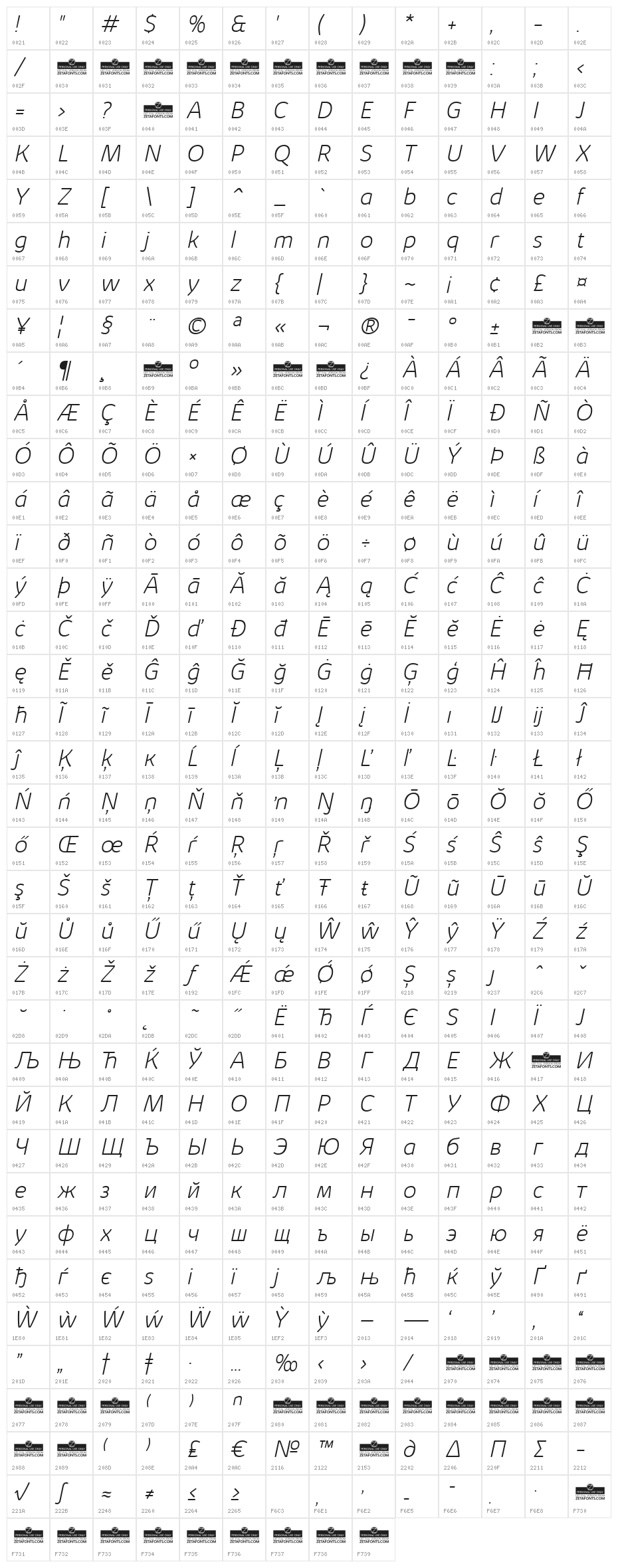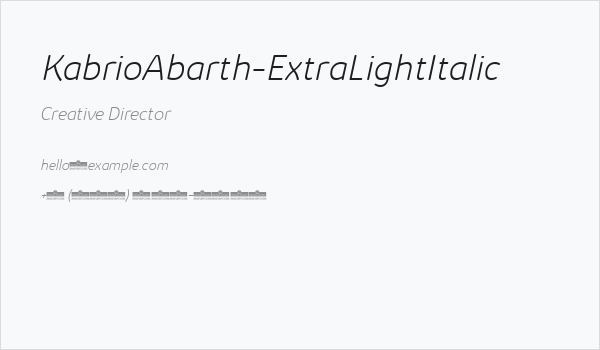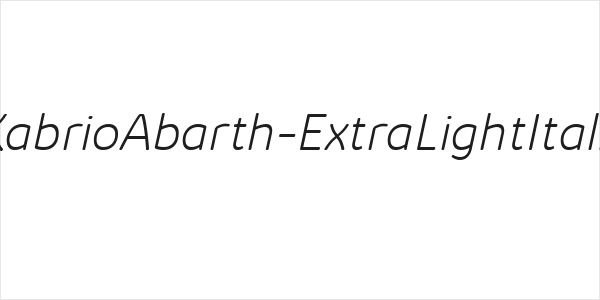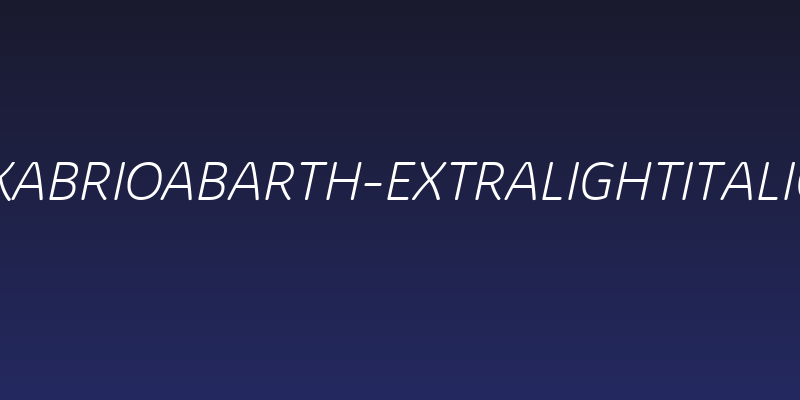
KabrioAbarth-ExtraLightItalic Font
KabrioAbarth-ExtraLightItalic Description
This font features a sleek and modern design with a slight italic slant, giving it a dynamic and forward-moving appearance. The characters are crafted with a clean and minimalistic approach, emphasizing simplicity and readability. The strokes are consistent and smooth, contributing to a harmonious and elegant look. The font maintains a uniform weight throughout, ensuring a balanced and cohesive presentation. Its contemporary style makes it suitable for various applications, from digital interfaces to print media. The character set includes uppercase and lowercase letters, numerals, and a range of punctuation marks, providing versatility for different design needs.
| Proposed Projects | Ideal for branding, digital interfaces, editorial design, and modern advertising. |